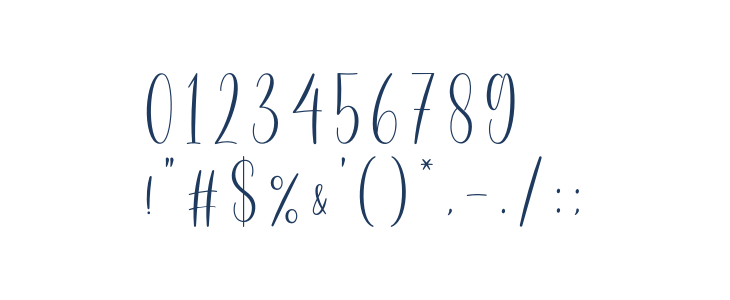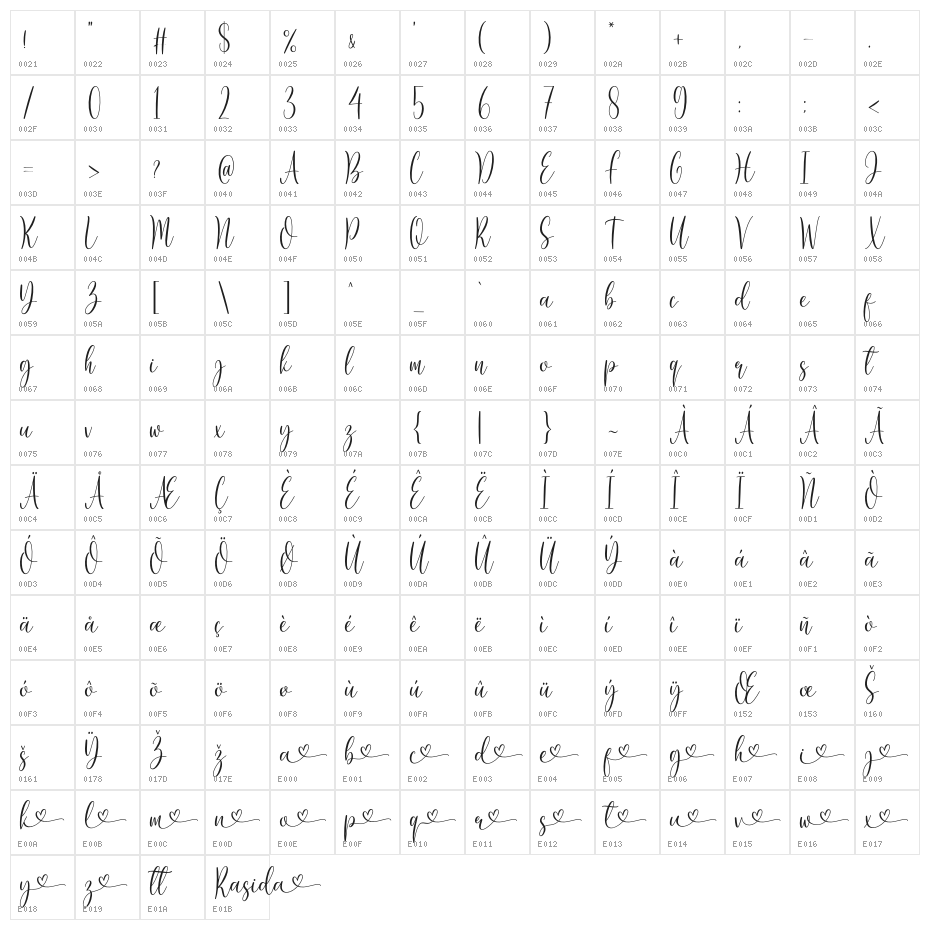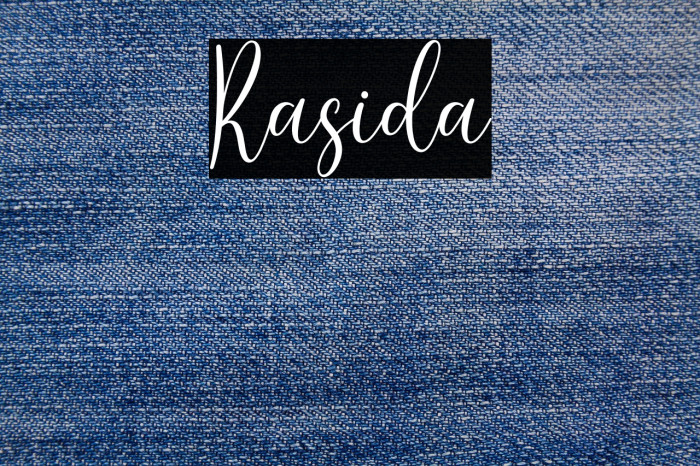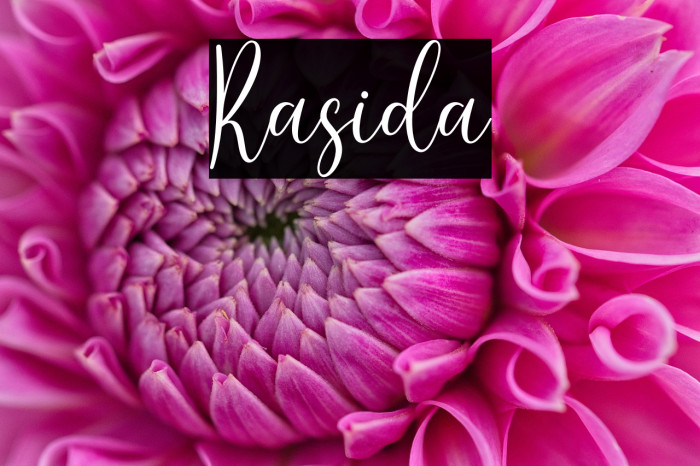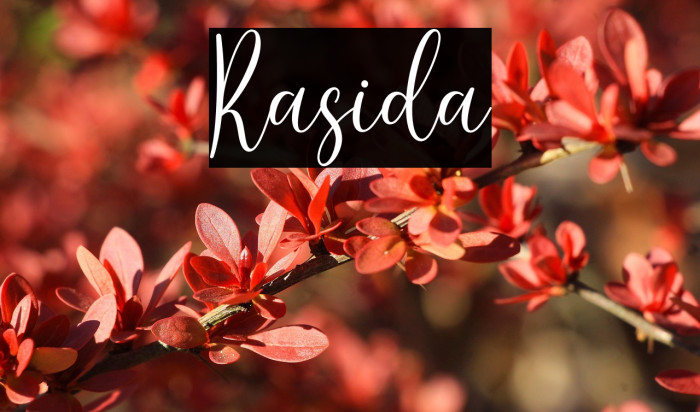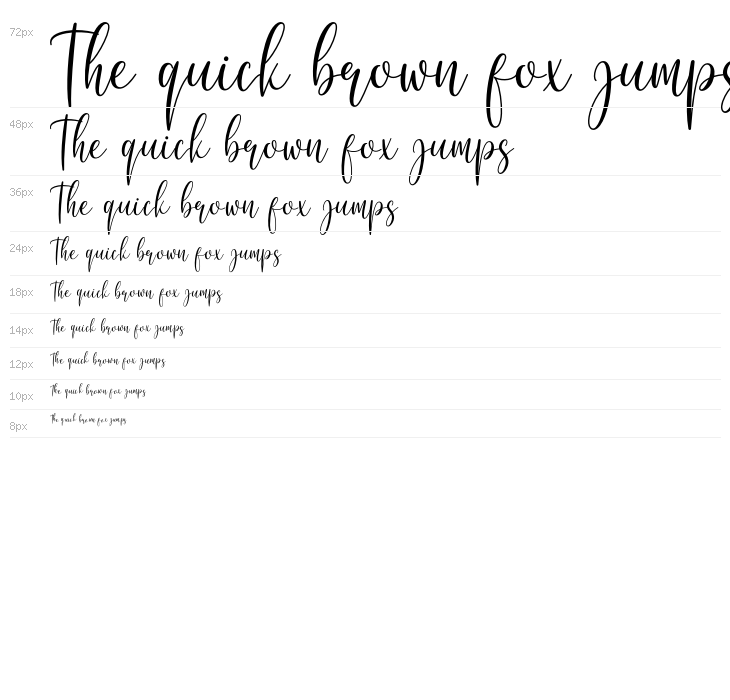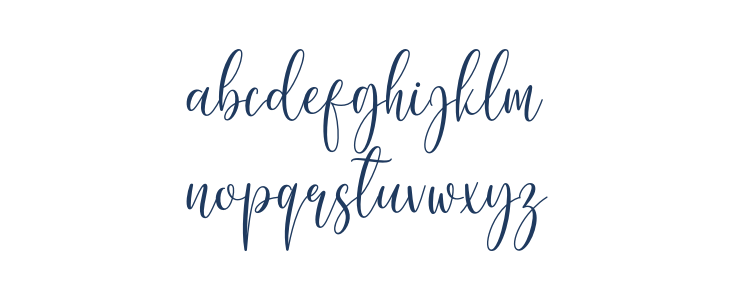
Rasida Font
Rasida Description
This font features an elegant, flowing script style that combines both uppercase and lowercase letters with a sense of fluidity and grace. The characters are connected in a way that mimics natural handwriting, giving it a personal and artistic touch. The uppercase letters are tall and slender, with sweeping curves and loops that add a sense of movement and dynamism. The lowercase letters maintain a consistent style, with smooth transitions and rounded forms that enhance readability. The numerals are designed with a similar aesthetic, featuring elongated forms and subtle curves. Special characters are included, maintaining the overall cohesive look. This font is ideal for projects that require a personal, handwritten feel, such as invitations, greeting cards, or branding materials.
| Overall Style | Elegant, Handwritten |
| Use Case | Headlines, Invitations, Branding |
| Proposed Projects | Ideal for wedding invitations, greeting cards, logos, and branding materials. |